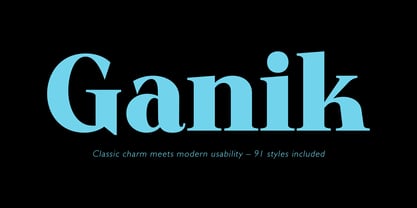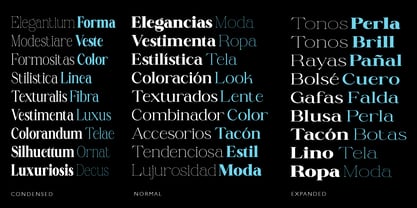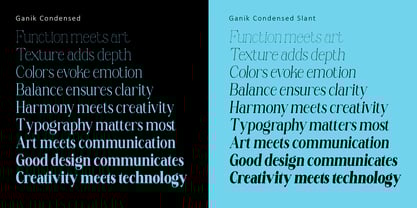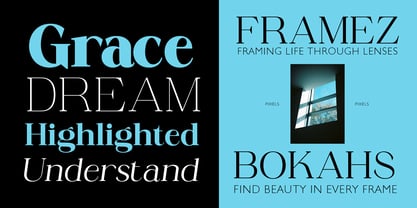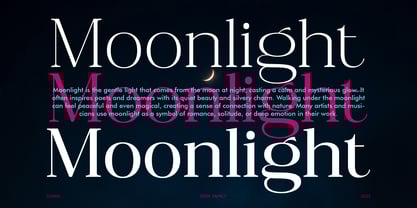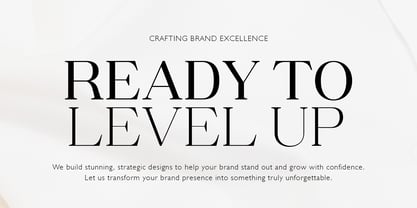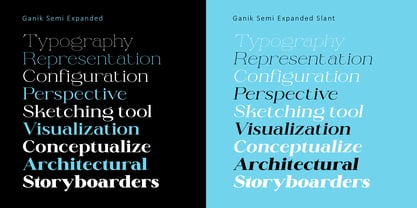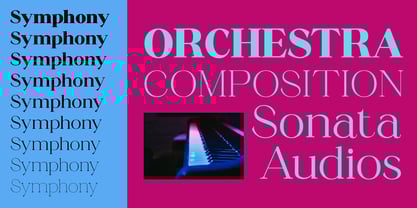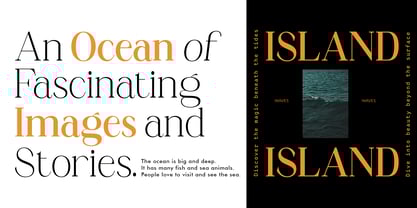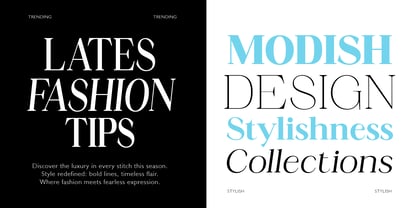
Ganik
by Lucky Type
The Ganik Font Family was designed by Muhammad Fajar and published by Lucky Type. Ganik contains 91 styles and family package options. More about this family
Ganik is a modern serif typeface that blends bold elegance with practical versatility. Its thick, sculptural letterforms evoke the timeless charm of classic serif typography, while subtle contemporary touches ensure excellent readability and usability across digital and print media. With 91 styles included, Ganik offers a comprehensive typographic system suitable for branding, editorial design, and user interfaces. Perfectly balanced between tradition and innovation, Ganik delivers a sophisticated yet approachable visual voice.
Designers: Muhammad Fajar
Foundry: Lucky Type